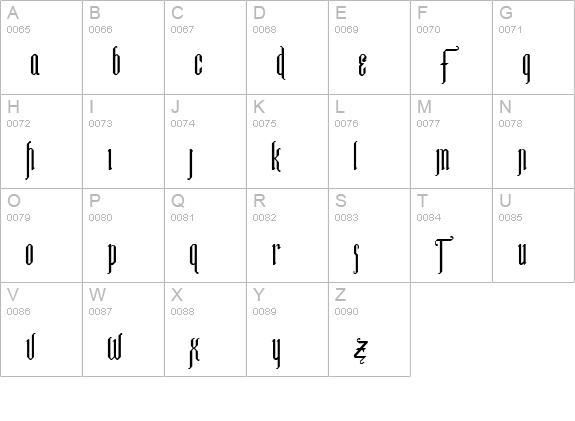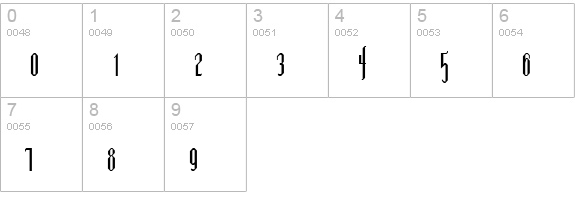
Ipswich Bold is a strong, high-contrast variant in the Ipswich typeface family \xE2\x80\x94 well suited to headlines, attention-grabbing titles, and strong calls-to-action.
Introducing Ipswich Bold, a captivating and versatile font that effortlessly commands attention with its bold and assertive presence. This remarkable typeface is a true embodiment of strength and confidence, making it the perfect choice for designs that require a bold statement. Ipswich Bold is meticulously crafted with precision and attention to detail, resulting in a font that is both visually stunning and highly readable. Its robust and well-defined letterforms exude a sense of authority, making it ideal for headlines, logos, packaging, and any design project that needs to make a lasting impression. What makes Ipswich Bold even more exceptional is that it is freely available to download at FontsMarket.com. With this remarkable offer, designers and creatives alike can experience the power of this extraordinary font without any limitations. Whether you're designing a striking poster, a captivating advertisement, or a striking website, Ipswich Bold will elevate your project to new heights. Its versatility allows it to seamlessly adapt to various design styles, ensuring that it remains a valuable asset in any creative toolkit. Say goodbye to mundane and predictable typography and embrace the boldness and uniqueness that Ipswich Bold brings to the table. It is a font that demands attention, exudes confidence, and speaks volumes with every character. Download Ipswich Bold for free at FontsMarket.com and unleash the full potential of your designs.